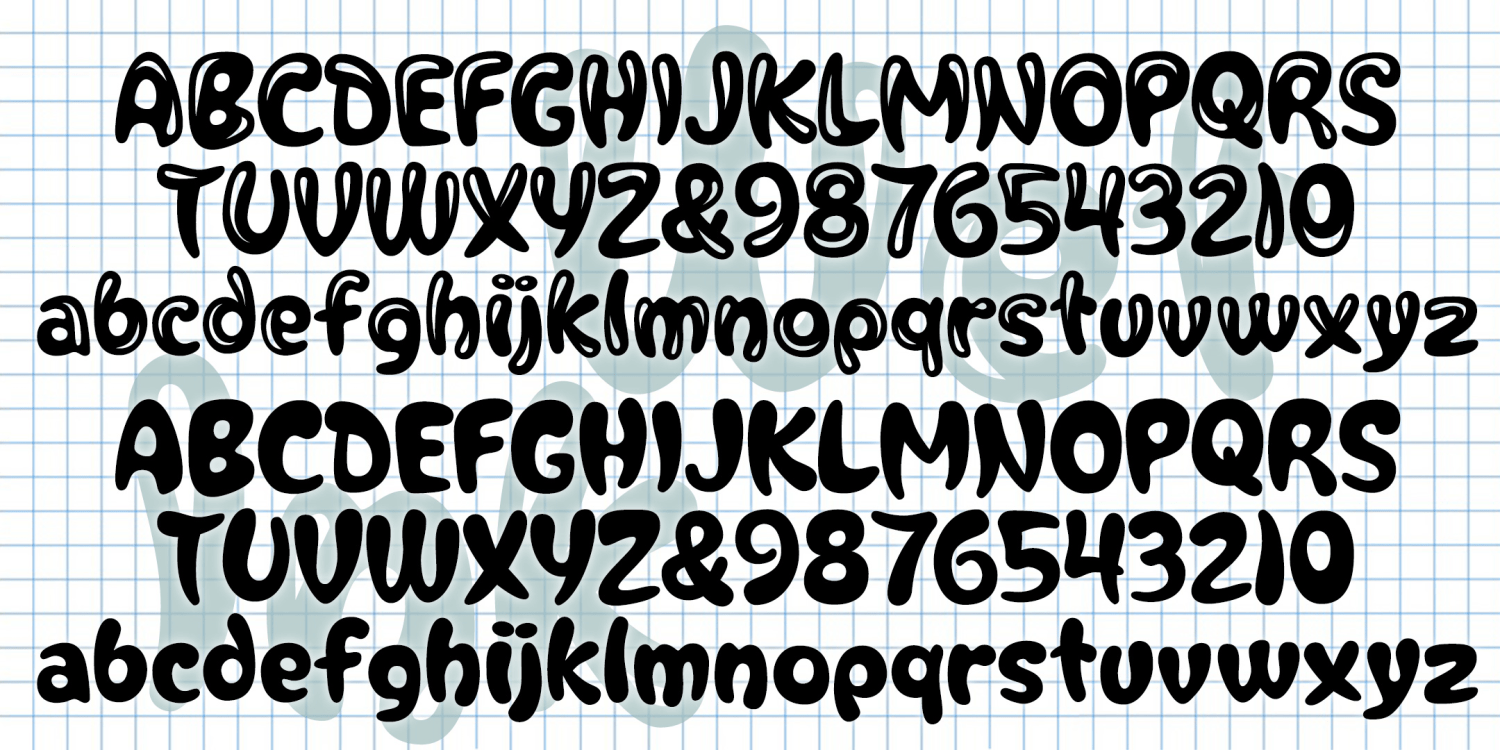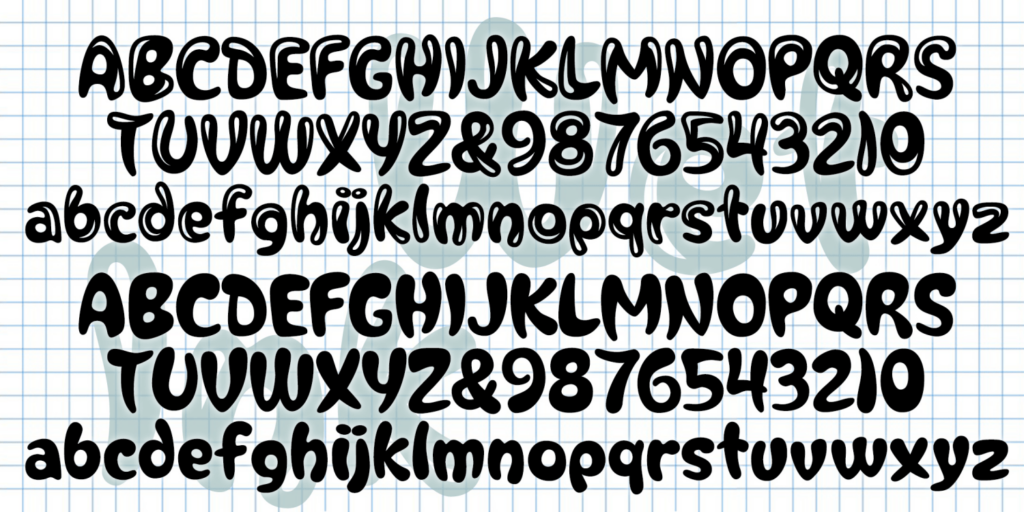
Wet Ink
About Wet Ink
WET INK is a playful font that looks like you spilled a shiny liquid and the droplets formed letters. There's a solid version without highlights; use it separately or layer it behind the first in a different color for more effects.